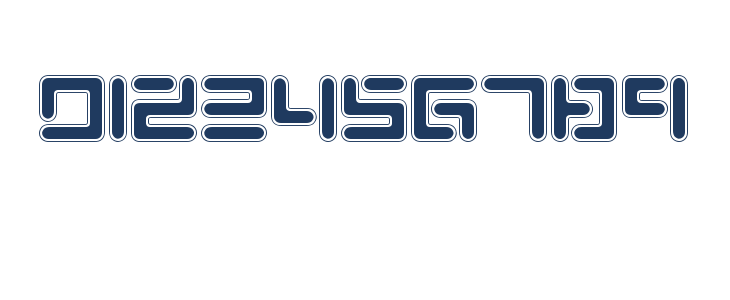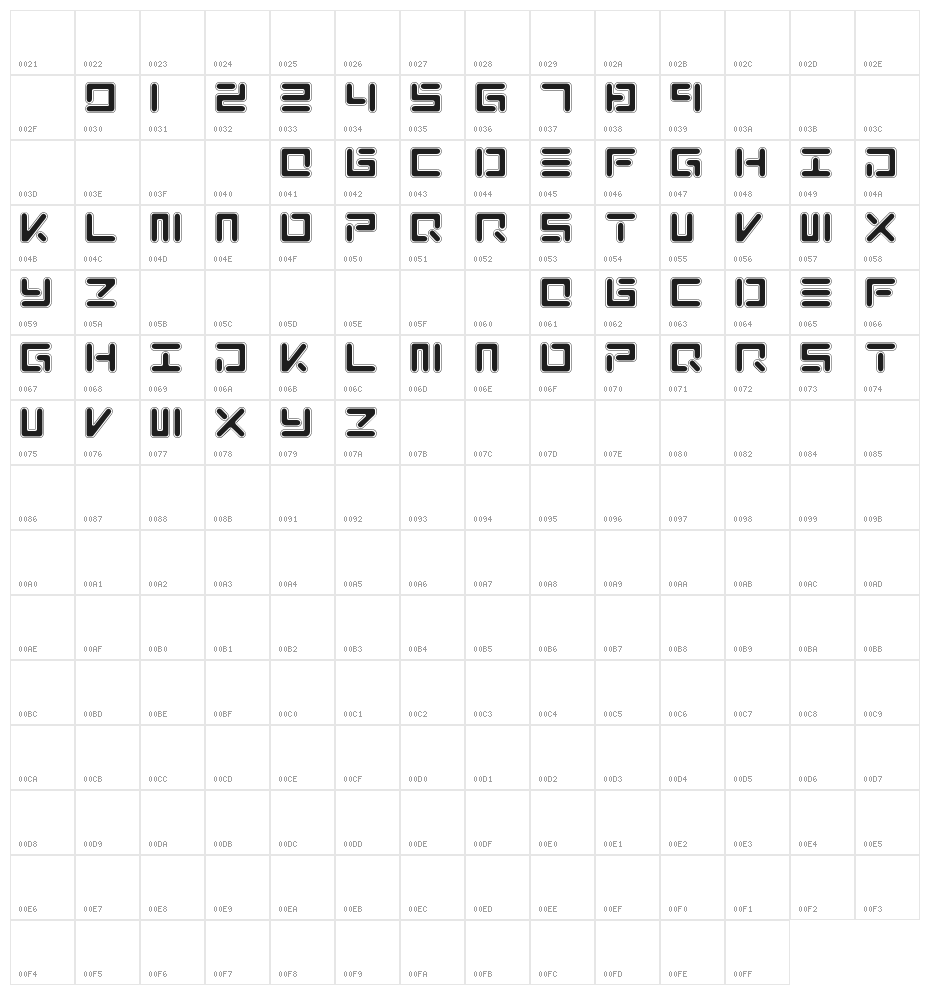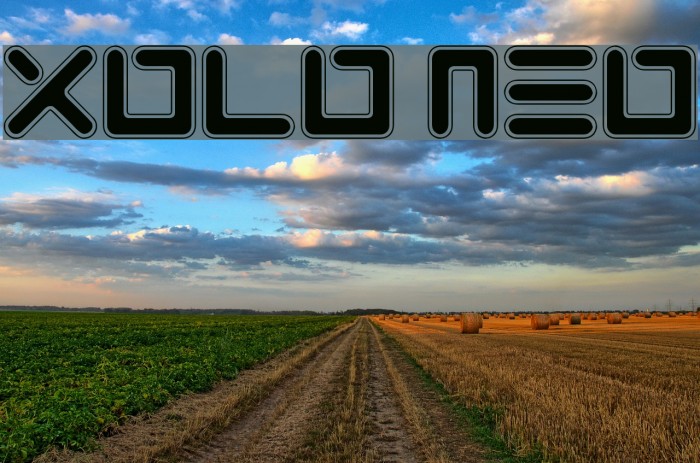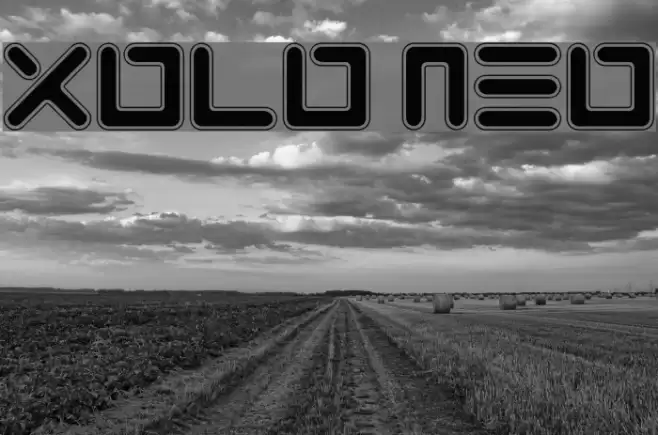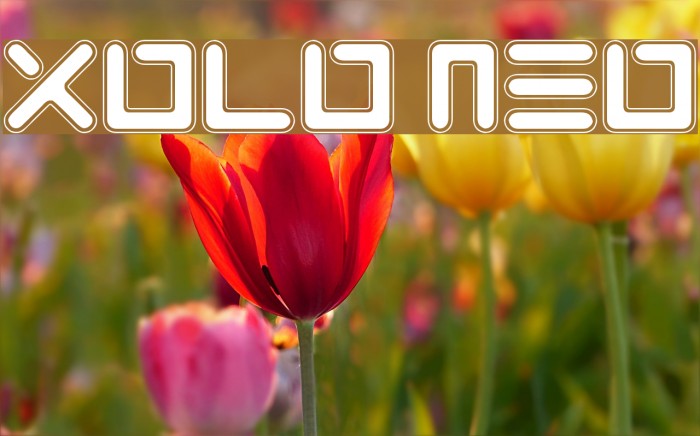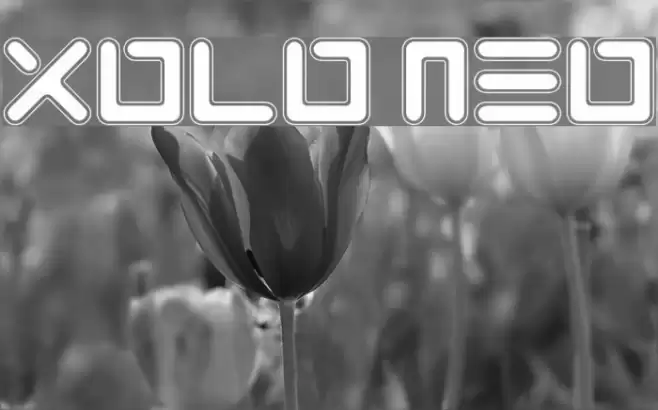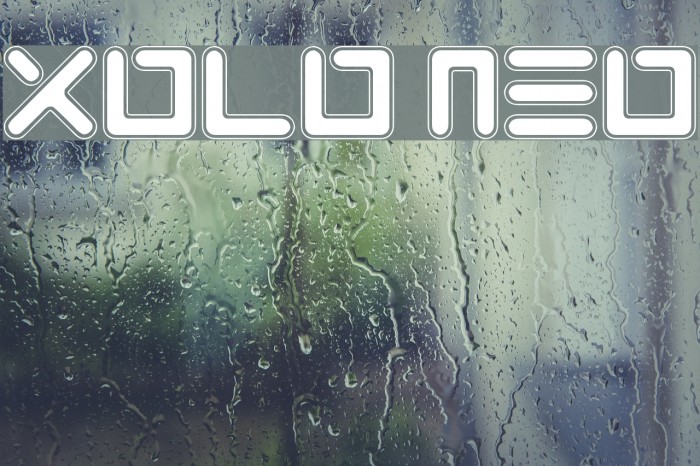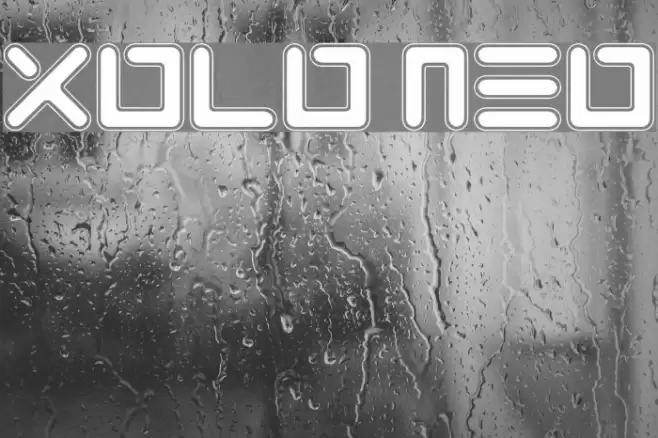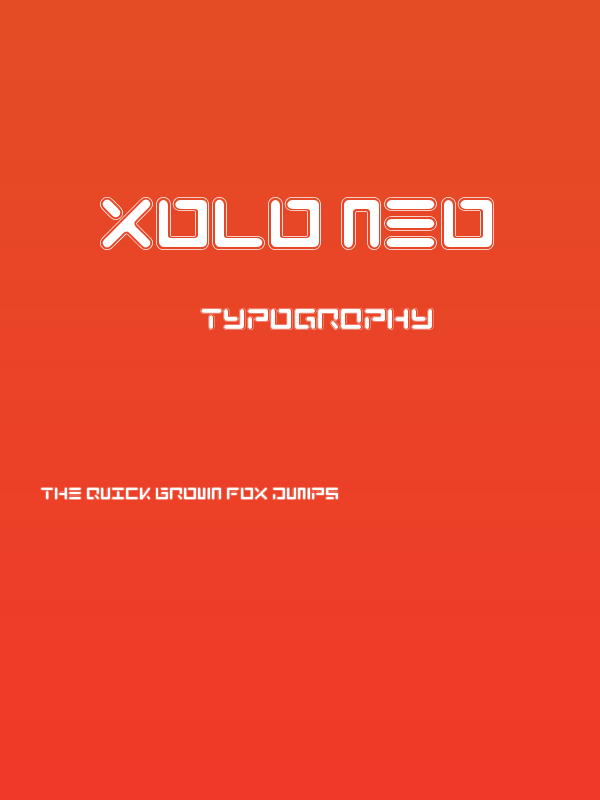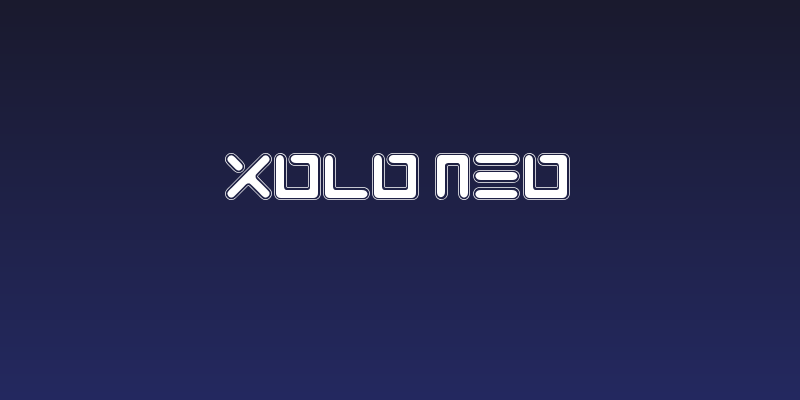
Xolo Neo Font
Xolo Neo Description
This font features a futuristic and geometric design with a strong emphasis on rounded edges and hollow interiors. The characters are bold and have a distinct outline that gives them a three-dimensional appearance. The uppercase and lowercase letters maintain a consistent style, with uniform thickness and spacing. The numbers follow the same design principles, ensuring a cohesive look across all characters. This font is ideal for projects that require a modern and tech-inspired aesthetic, offering a unique visual impact.
| Proposed Projects | Ideal for tech branding, sci-fi posters, video game titles, and modern digital interfaces. |